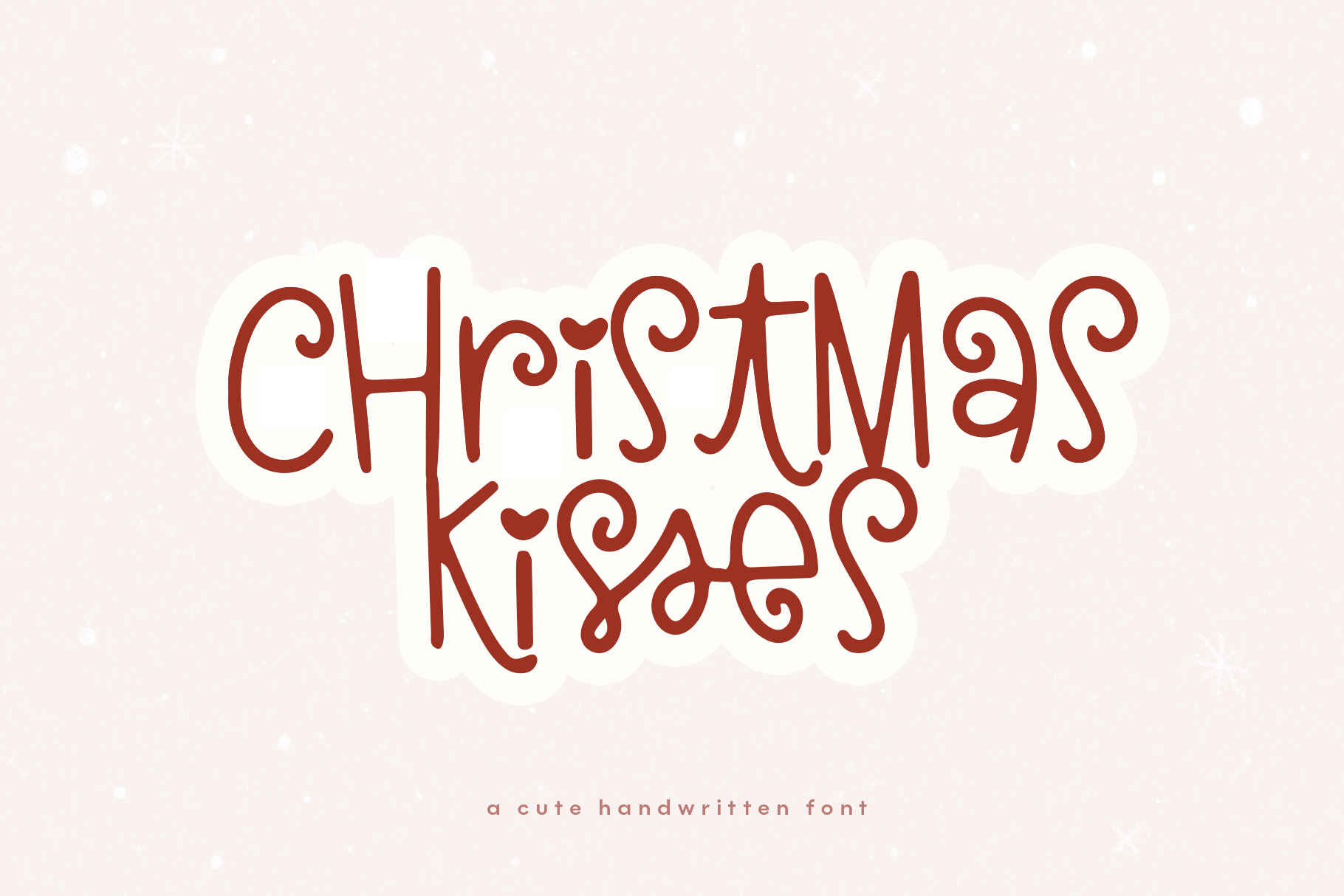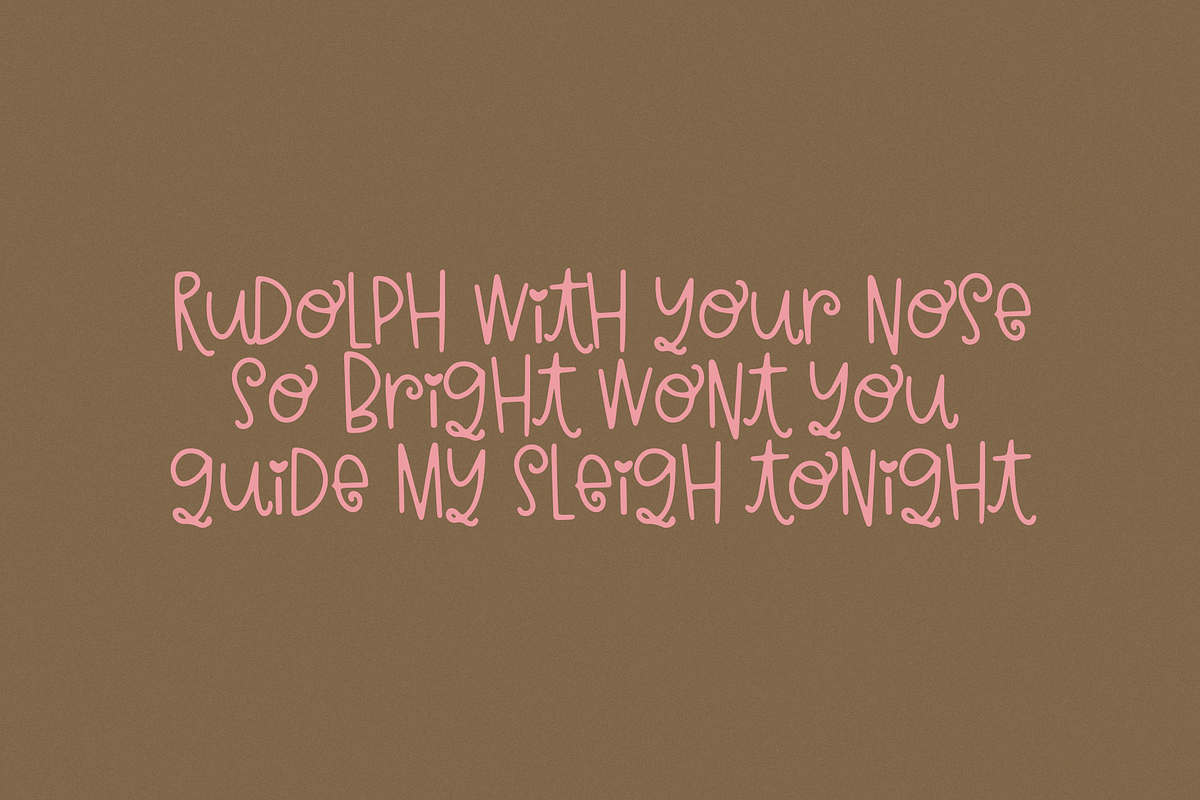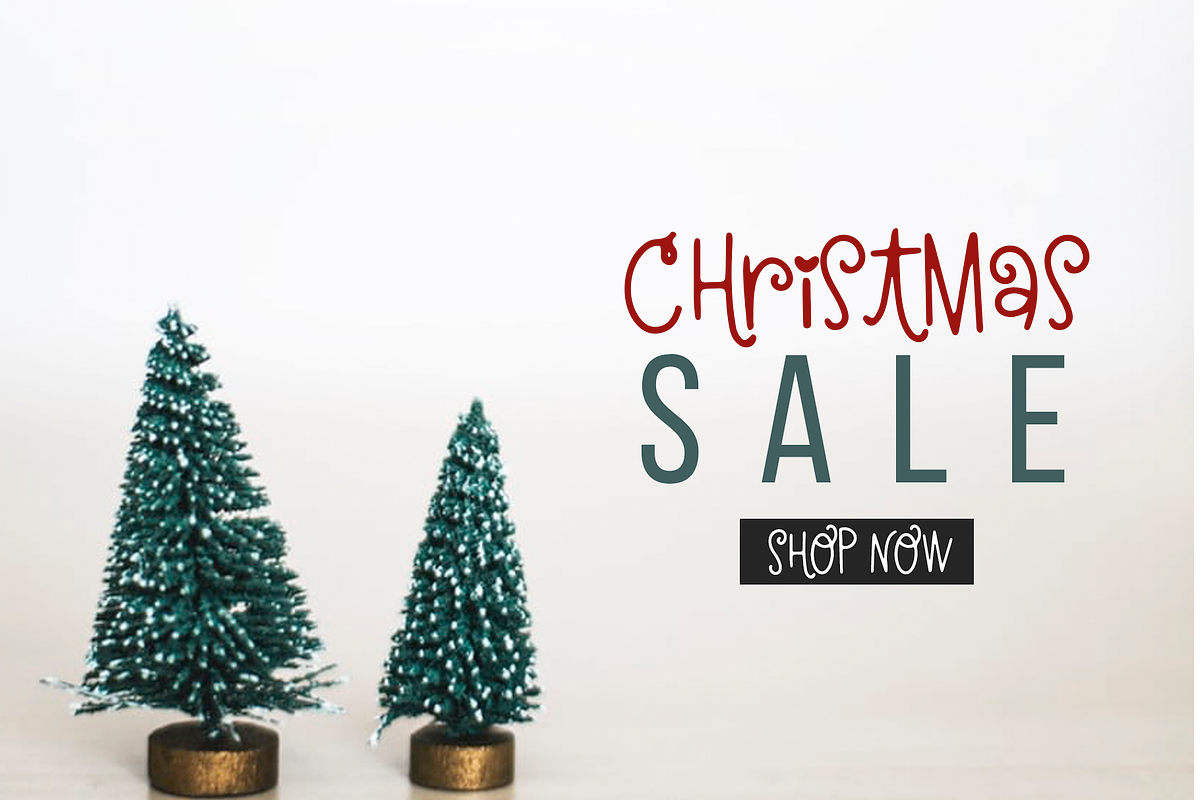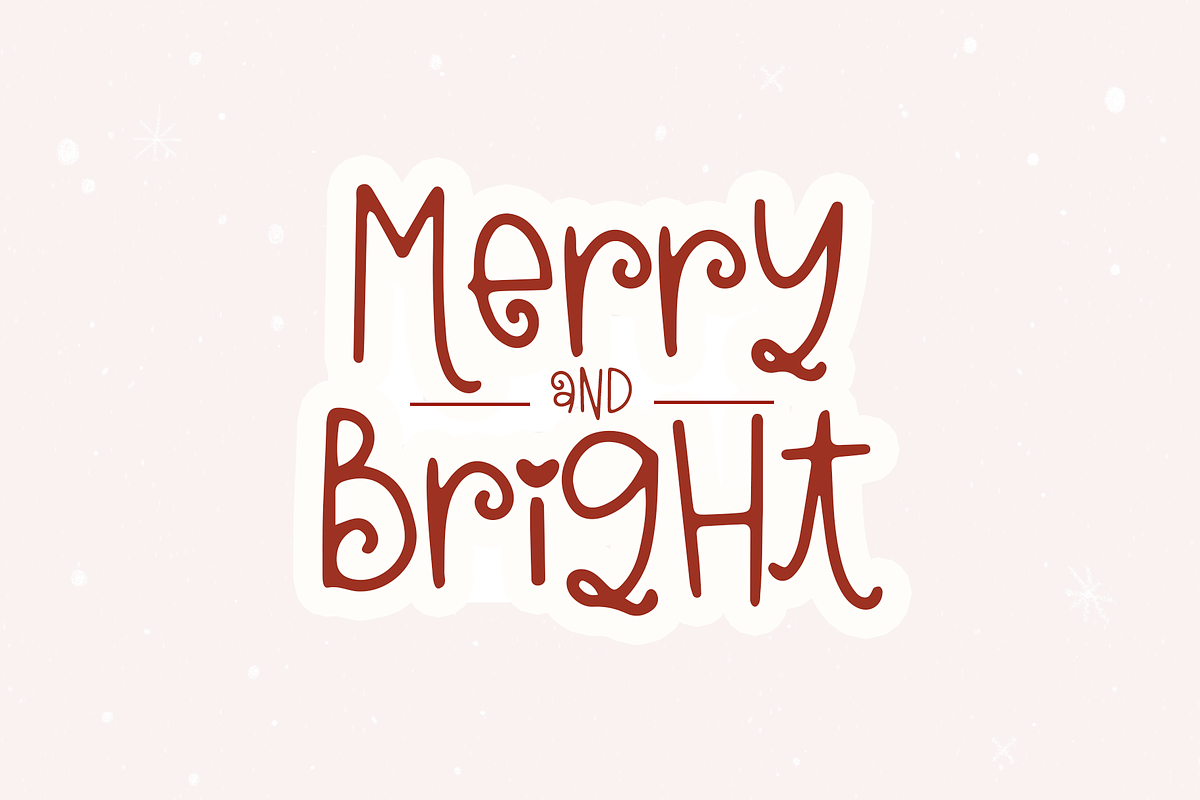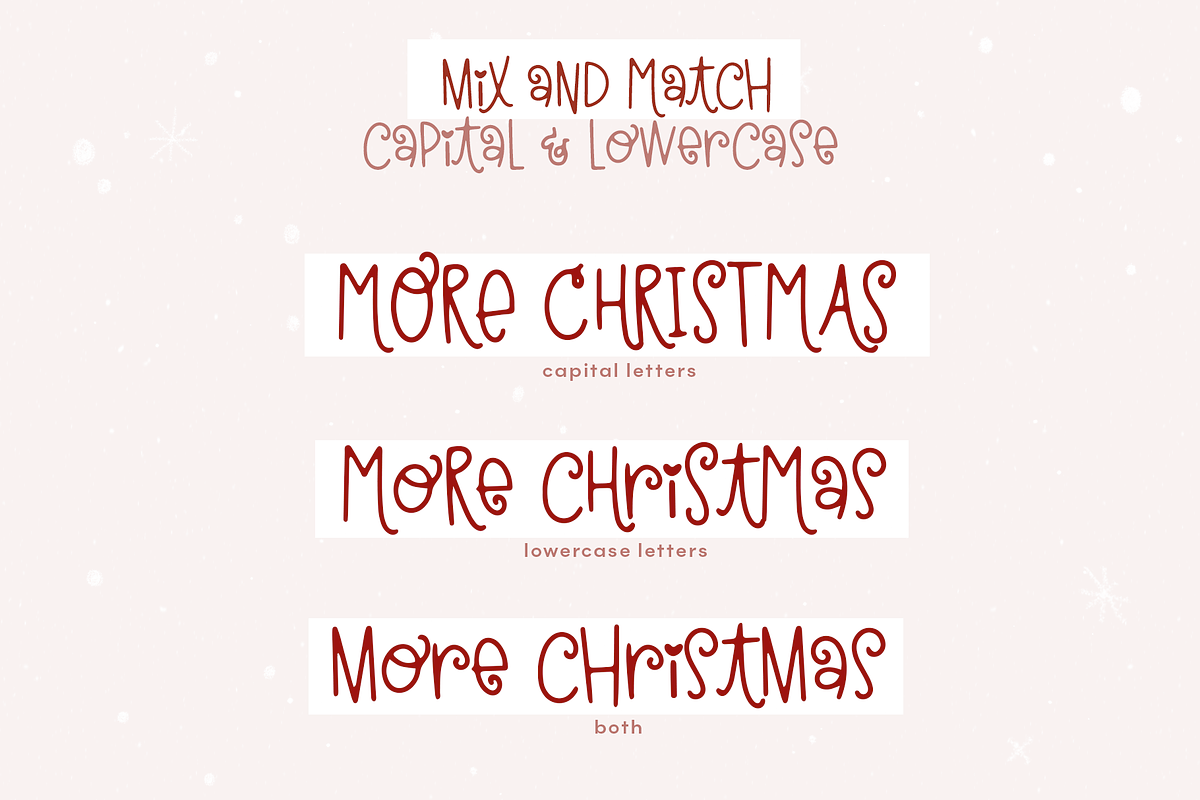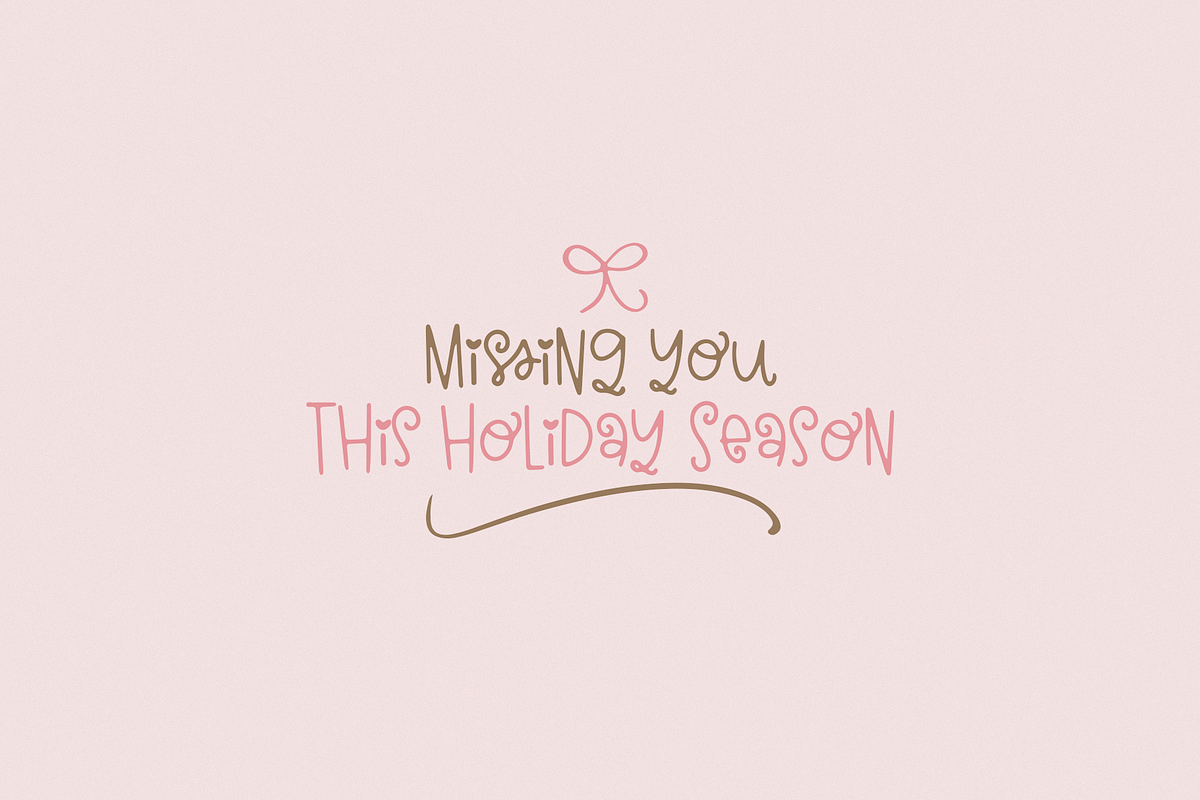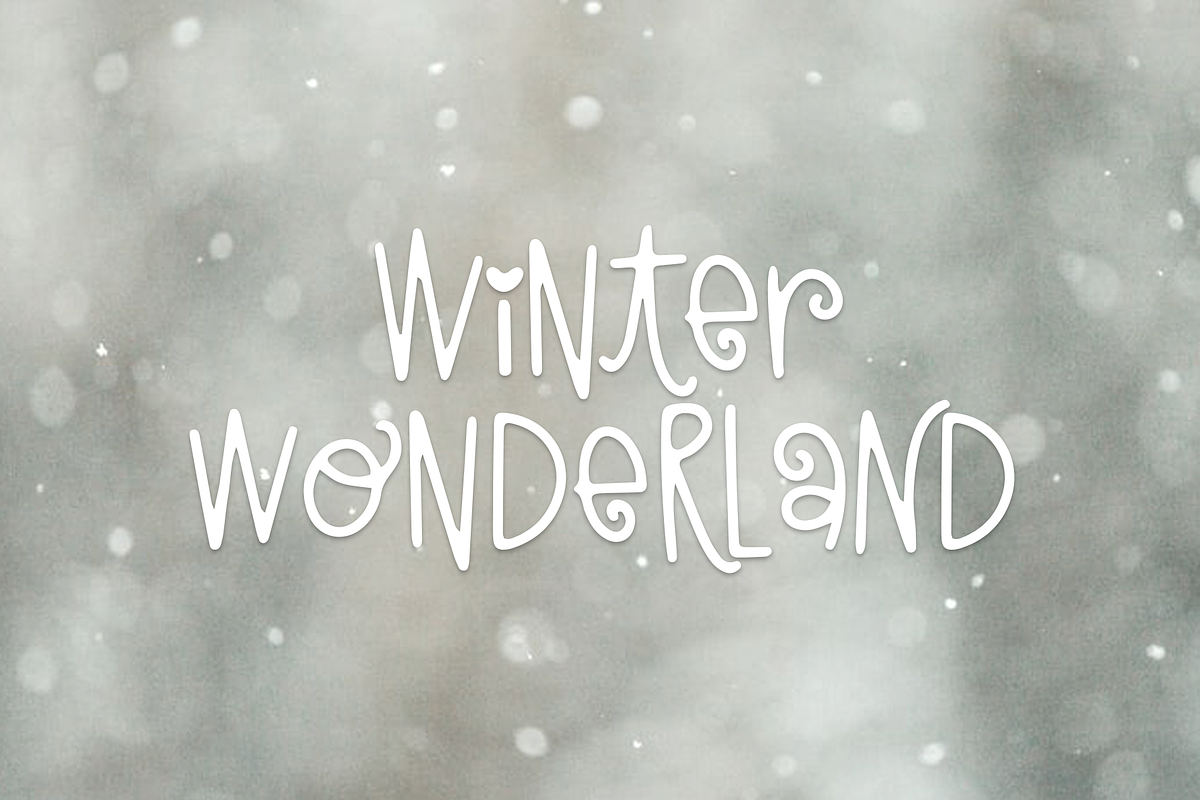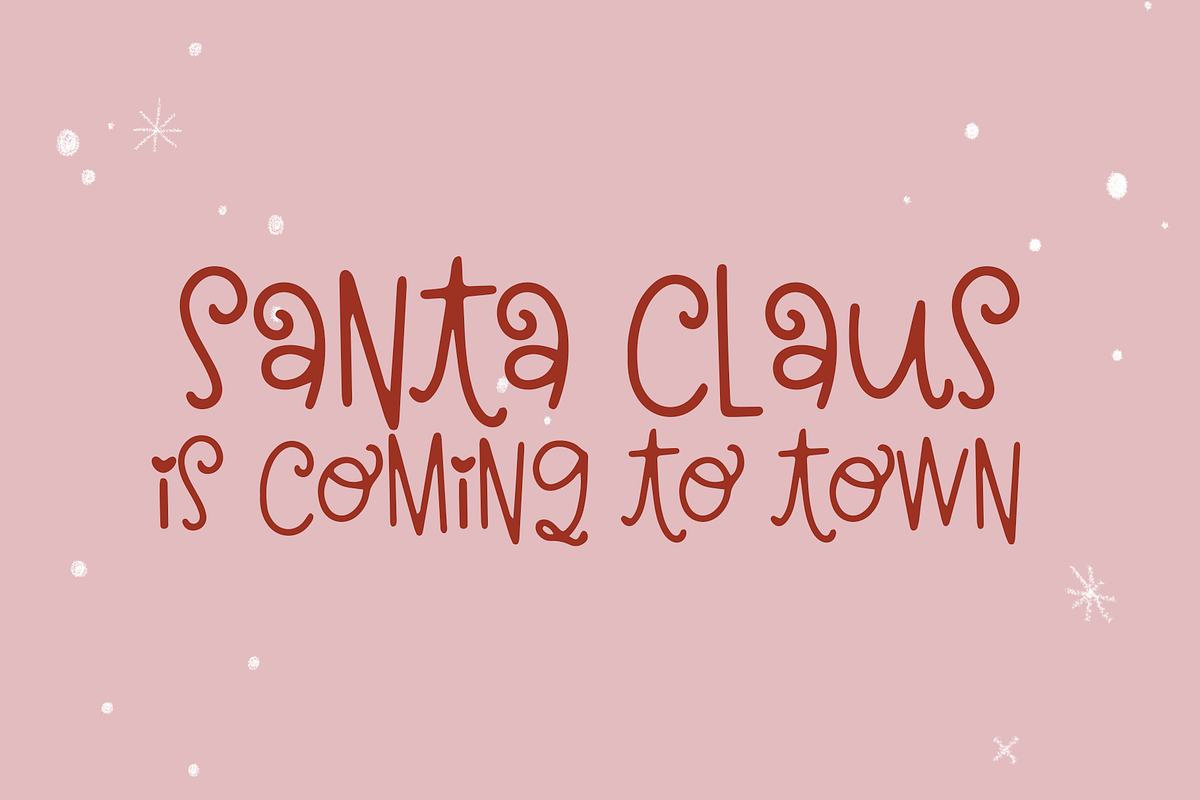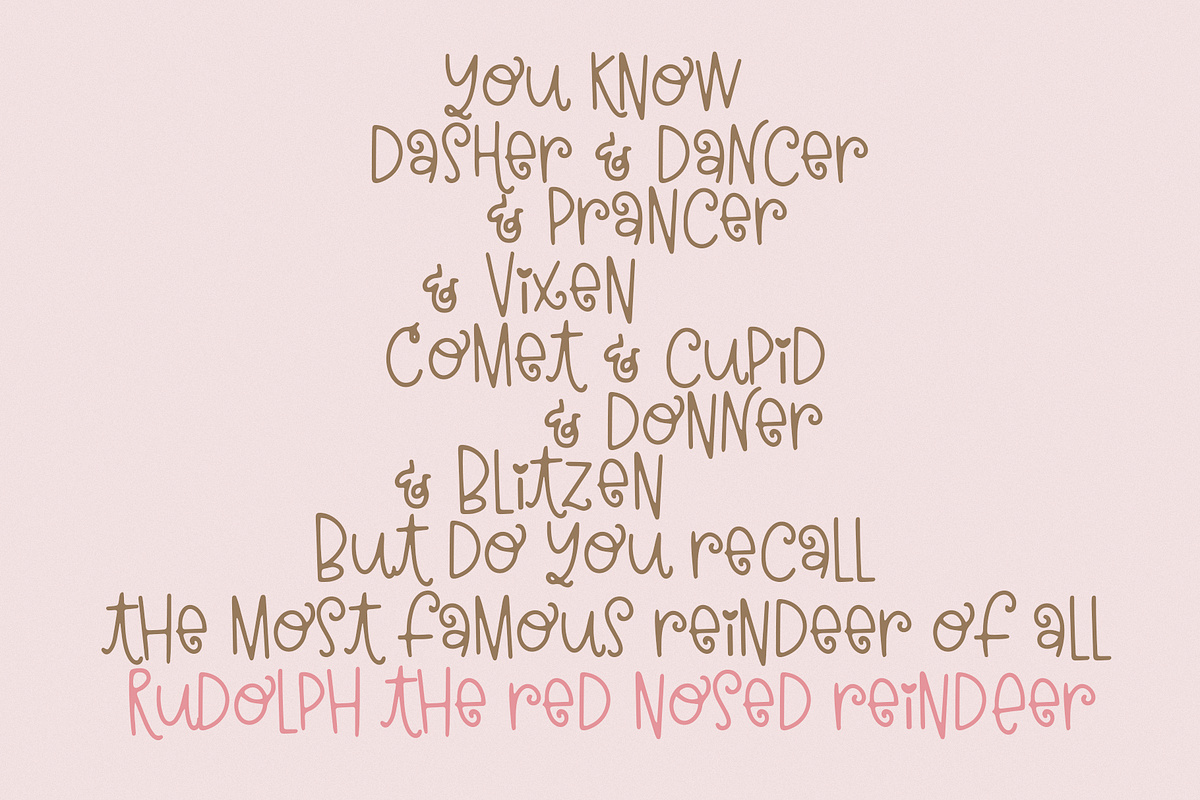
Christmas Kisses | Fun Holiday Font
Christmas Kisses is a cute & quirky Holiday font!
The letters are swirly and unique for a fun look to all of your Christmas projects!
This font is perfect for quotes, shirt designs, websites, branding, children's designs, blogs, logos, svgs, holiday prints, invitations and more!